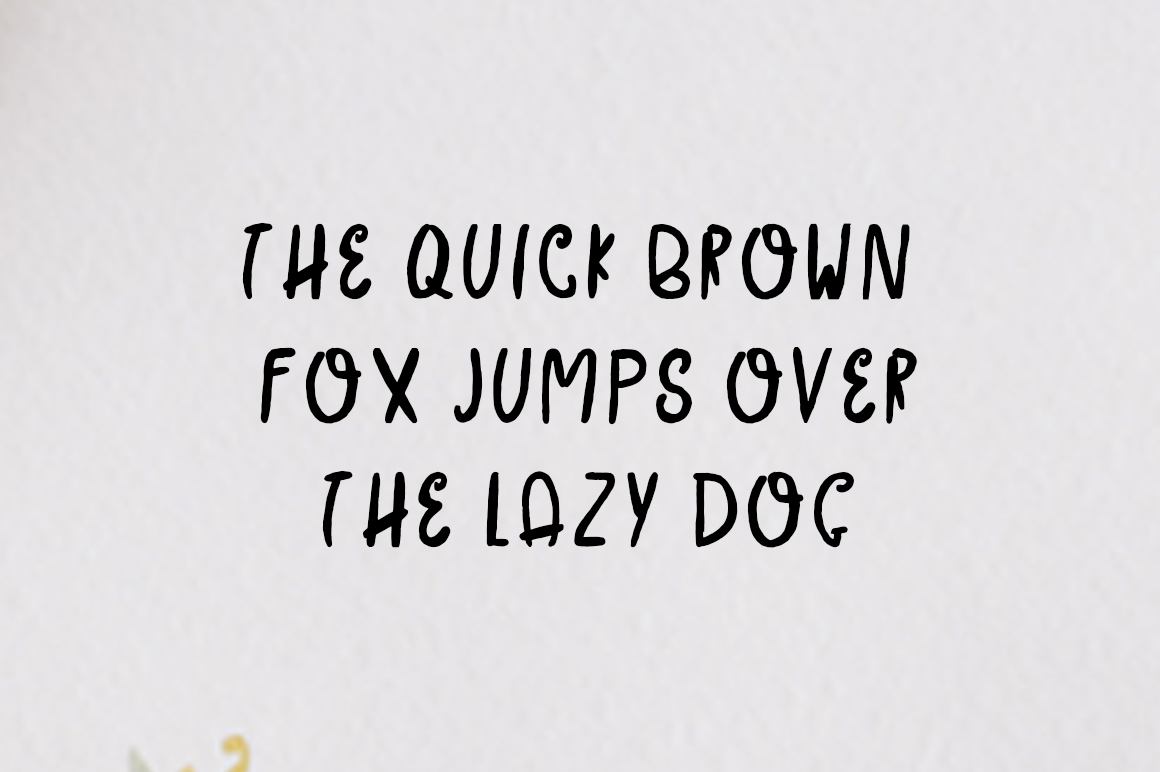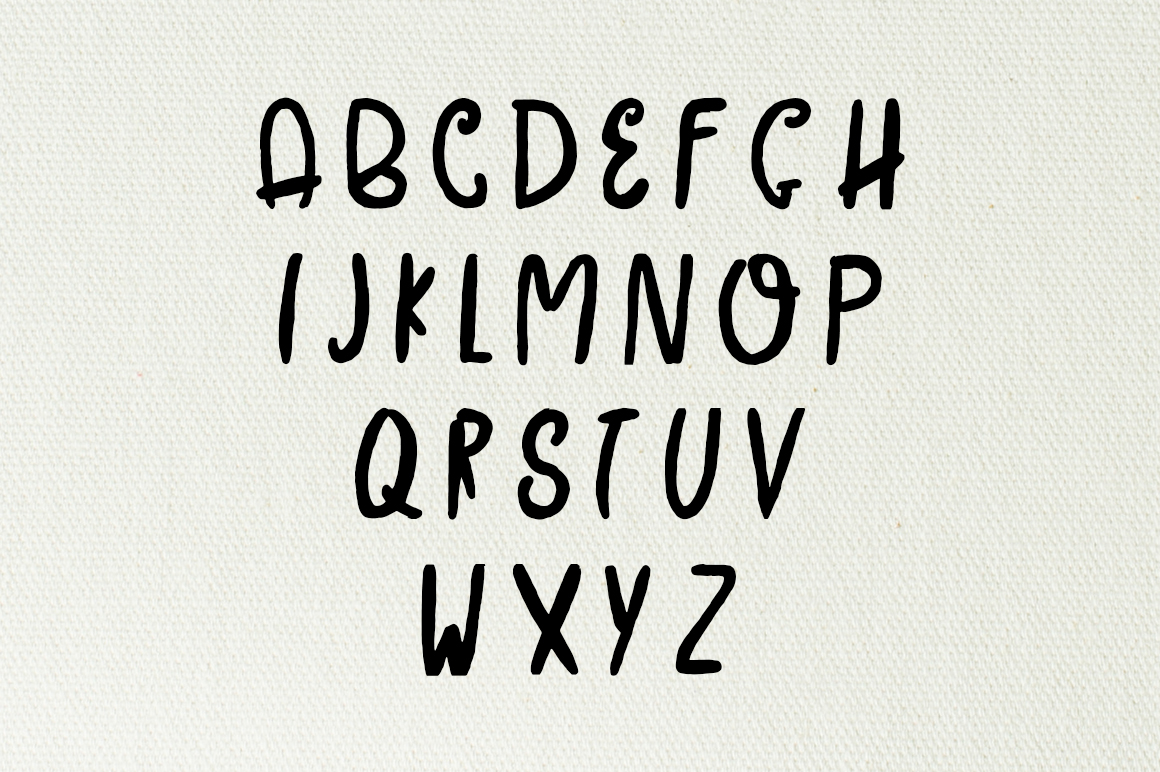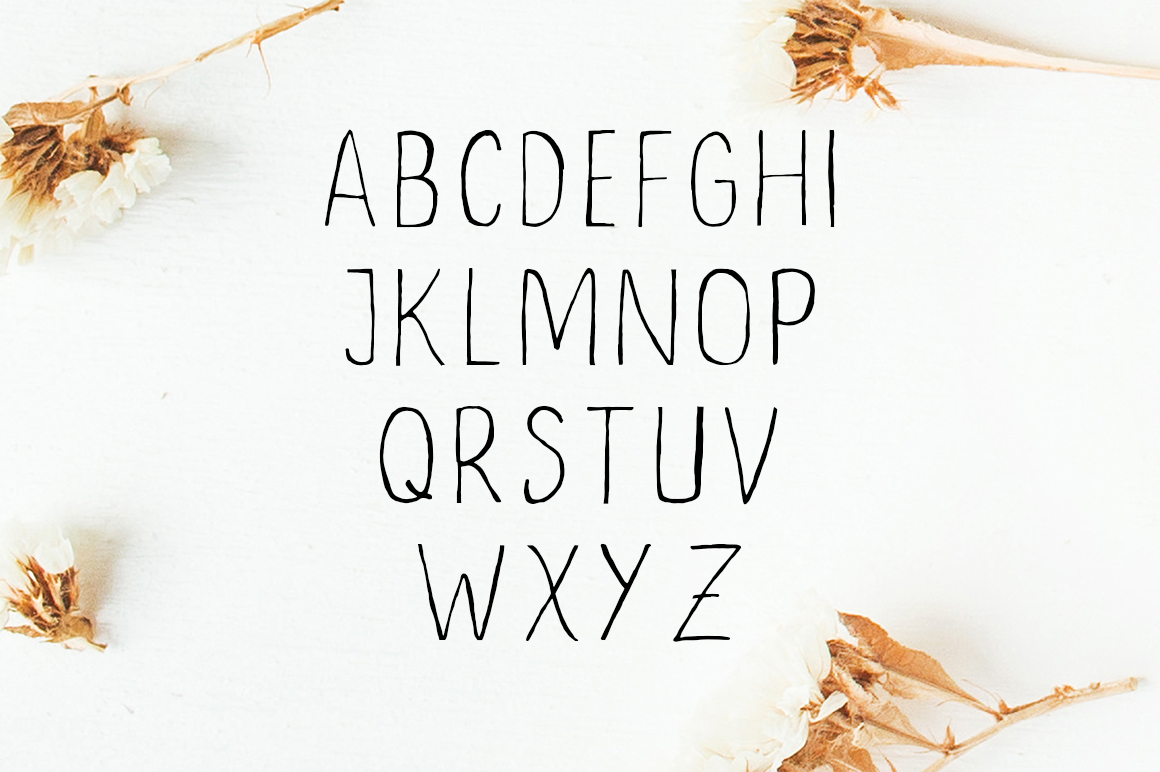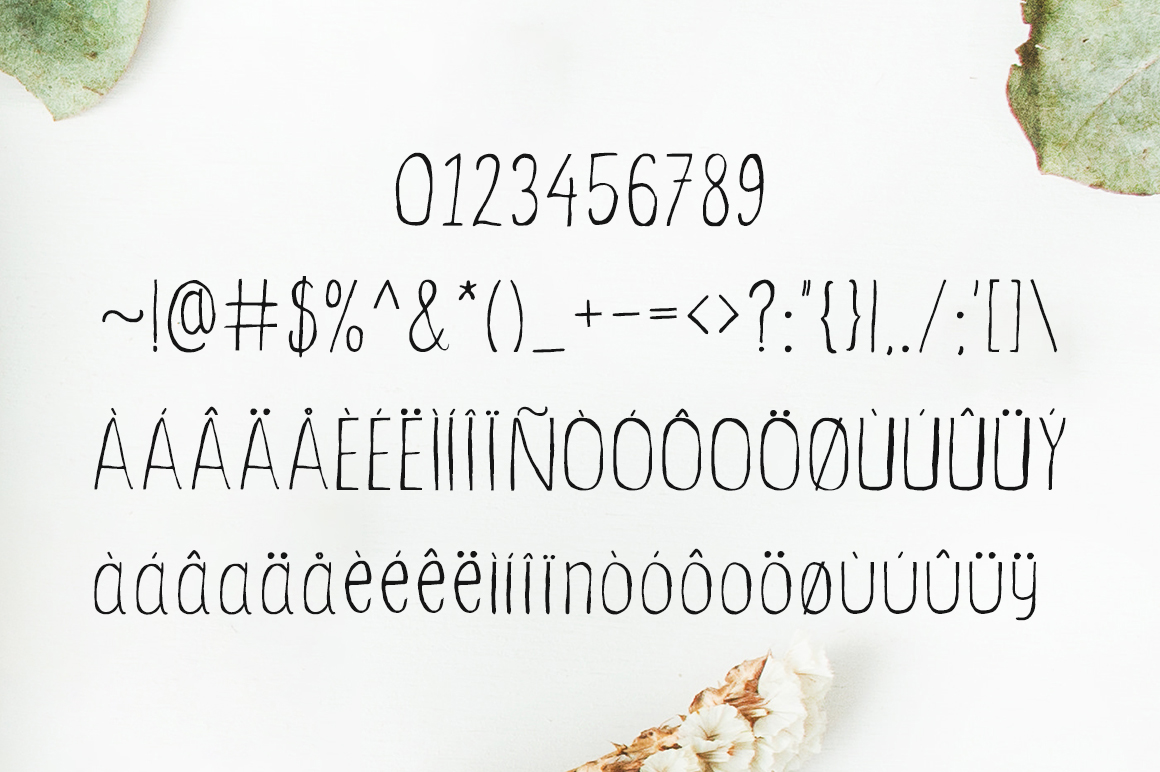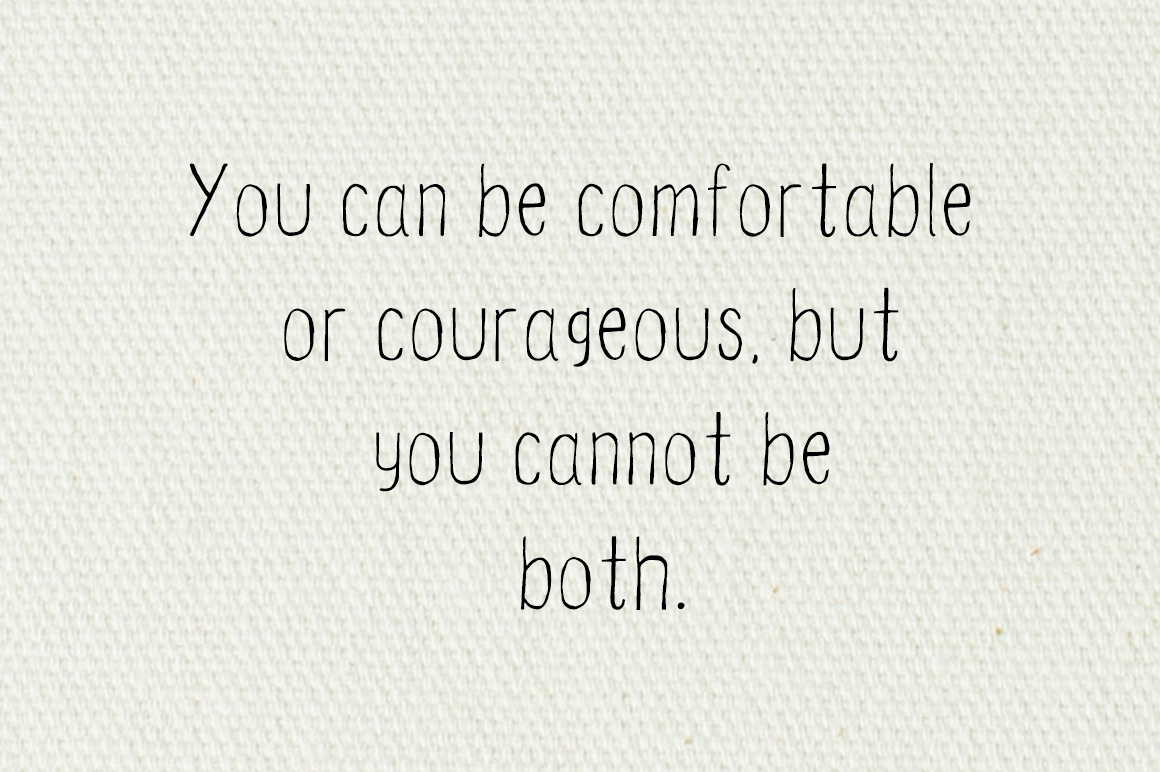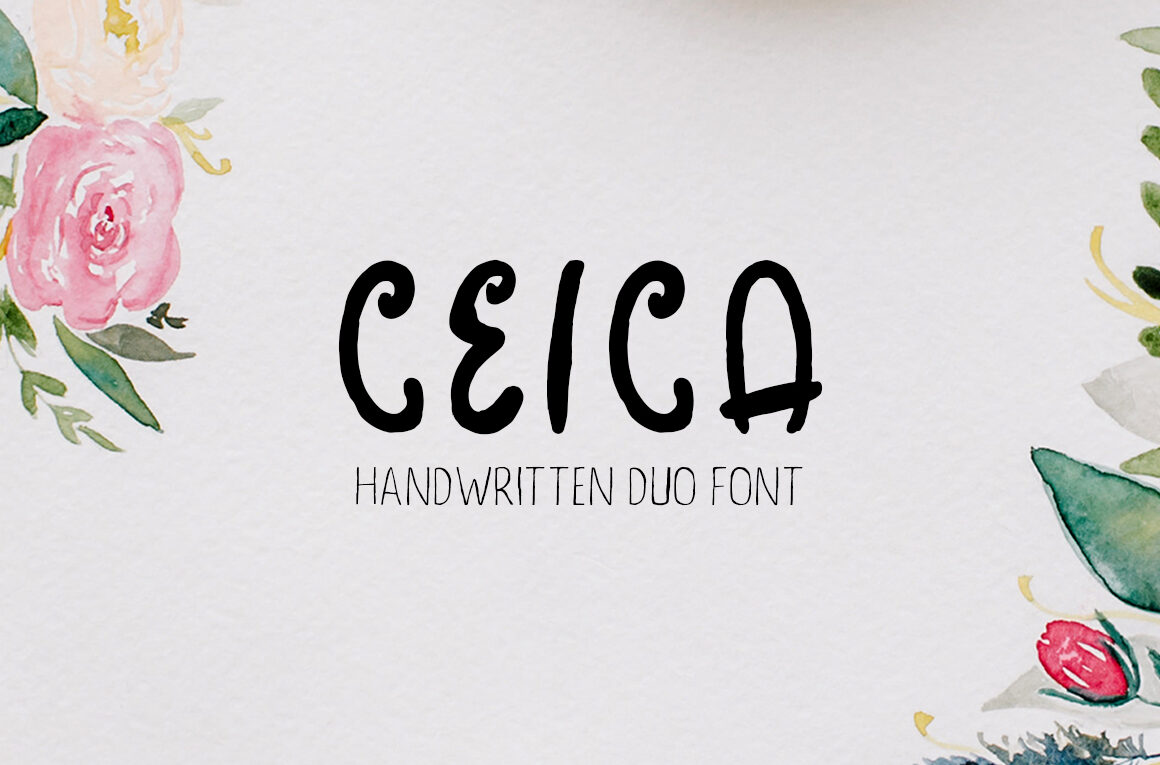
Introducing Ceica Duo Font: Elevate Your Designs with Elegant Handwritten Style
Are you on the hunt for a font that adds a touch of elegance and personality to your designs? Look no further than the Ceica Duo Font, a stunning dual handmade brush script font that is sure to take your creative projects to the next level. In this article, we’ll dive into the features, benefits, and uses of the Ceica Handwritten Duo Font, and explore how it can become an indispensable part of your design toolkit.
What is Ceica Duo Font?
Ceica Handwritten Duo Font is a beautifully crafted dual font that combines the charm of handwritten brush script with the versatility of a modern typeface. This font comes with a comprehensive set of characters, including uppercase and lowercase letters, numerals, punctuation, and alternative glyphs. The dual nature of the font allows for a wide range of creative possibilities, making it perfect for designers and crafters looking to add a personal touch to their work.
Key Features of Ceica Duo Font
• Dual Font Style: The Ceica Duo Font offers two distinct styles that can be used together or separately, providing flexibility and variety in your designs.
• Handmade Brush Script: The font boasts a beautiful, handmade brush script look that adds warmth and personality to any project.
• Comprehensive Character Set: With uppercase and lowercase characters, numerals, punctuation, and alternative glyphs, the Ceica Duo Font has everything you need to create stunning text-based designs.
• Classy and Timeless: Whether used in all caps with wide-set spacing for a classy look or in a mix of capital and lowercase letters for a timeless feel, the Ceica Duo Font adapts to your design needs.
Uses of Ceica Duo Font
The versatility of the Ceica Handwritten Duo Font makes it suitable for a wide range of design projects. Here are some of the many ways you can use this beautiful font:
• Handwritten Quotes: Add a personal and elegant touch to your quotes and phrases.
• Branding & Logo Projects: Create memorable and impactful brand identities with the Ceica Duo Font.
• Merchandise: Elevate your merchandise designs with a font that stands out.
• Social Media Posts: Make your social media content more engaging and visually appealing.
• Displays and Headers: Use the Ceica Duo Font to create eye-catching displays and headers for your website or marketing materials.
• Invitations and Save the Dates: Add a touch of elegance to your event invitations and save the dates.
• Weddings and Titles: The font’s classy and timeless look makes it perfect for wedding designs and titles.
• Product Packaging: Stand out in the market with beautifully designed product packaging.
Why Choose Ceica Duo Font?
With so many fonts available, why should you choose the Ceica Handwritten Duo Font for your projects? Here are a few compelling reasons:
• Unique Style: The Ceica Duo Font offers a unique and distinctive style that will set your designs apart.
• Ease of Use: The font is easy to use and works seamlessly with most design software.
• High Versatility: Whether you’re working on digital or print projects, the Ceica Duo Font adapts effortlessly.
• Support for Creative Projects: The font’s features and style are specifically designed to support and enhance creative projects.
In conclusion, the Ceica Handwritten Duo Font is a powerful tool for designers and crafters looking to add a touch of elegance and personality to their projects. With its dual font style, comprehensive character set, and versatile nature, it’s an excellent choice for a wide range of design applications. Whether you’re creating handwritten quotes, branding and logo projects, or product packaging, the Ceica Duo Font is sure to elevate your designs and help you achieve your creative goals.